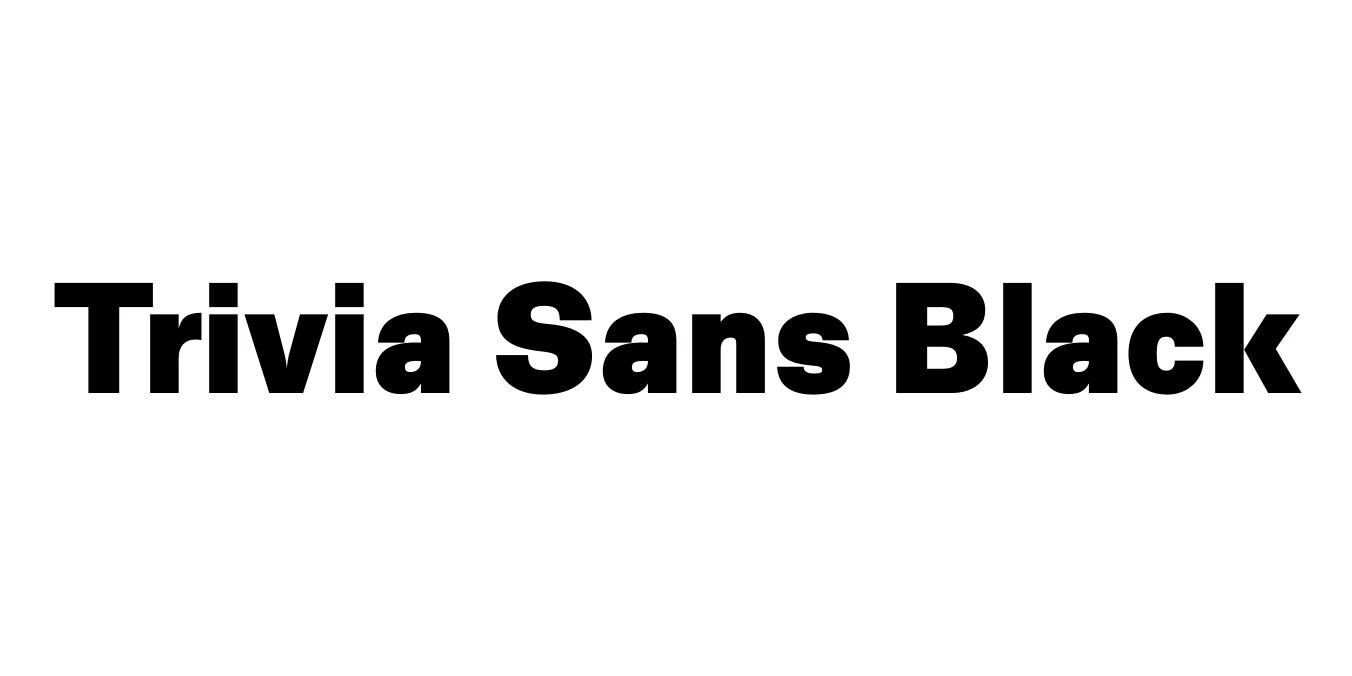
Trivia Sans Black
Designed by František Štorm
Trivia Sans Black is a powerful and authoritative weight within the larger Trivia superfamily, designed by the renowned Czech type designer František Štorm. Originally conceived for complex editorial environments and high-level information design, the font balances a mechanical rigor with subtle humanistic touches that ensure legibility even in dense layouts. The Black weight, in particular, was crafted to provide maximum visual impact while maintaining the clean, sophisticated aesthetic that characterizes the entire Trivia collection.
Released through the Storm Type Foundry, Trivia Sans Black is part of a versatile system that includes Serif, Slab, and Grotesk variations. This specific weight excels in display environments where boldness and clarity are paramount. Its wide apertures and sturdy proportions make it an excellent choice for modern digital interfaces and high-end print media, serving as a cornerstone for designers seeking a typeface that conveys both strength and professional reliability.
Trivia Sans Black Best Uses
Perfect for high-impact titles and section headers in magazines.
Ideal for creating strong, recognizable visual identities for corporate brands.
Highly legible from a distance, making it great for environmental graphics.
Excellent for bold hero sections and call-to-action buttons.